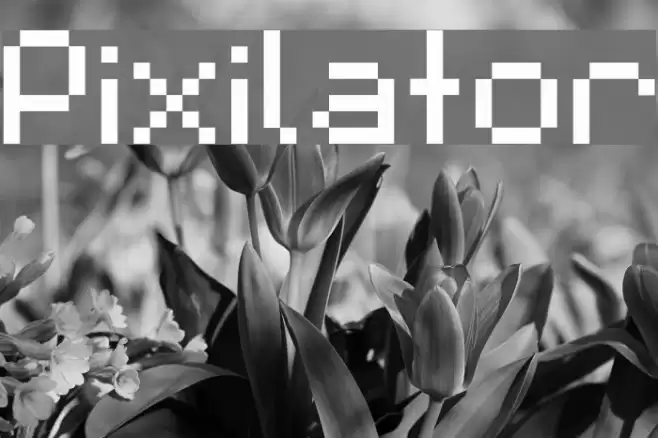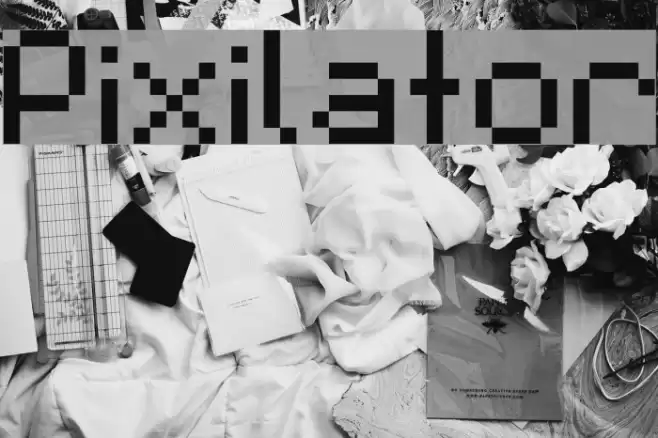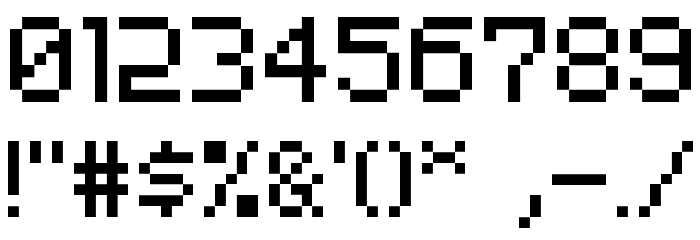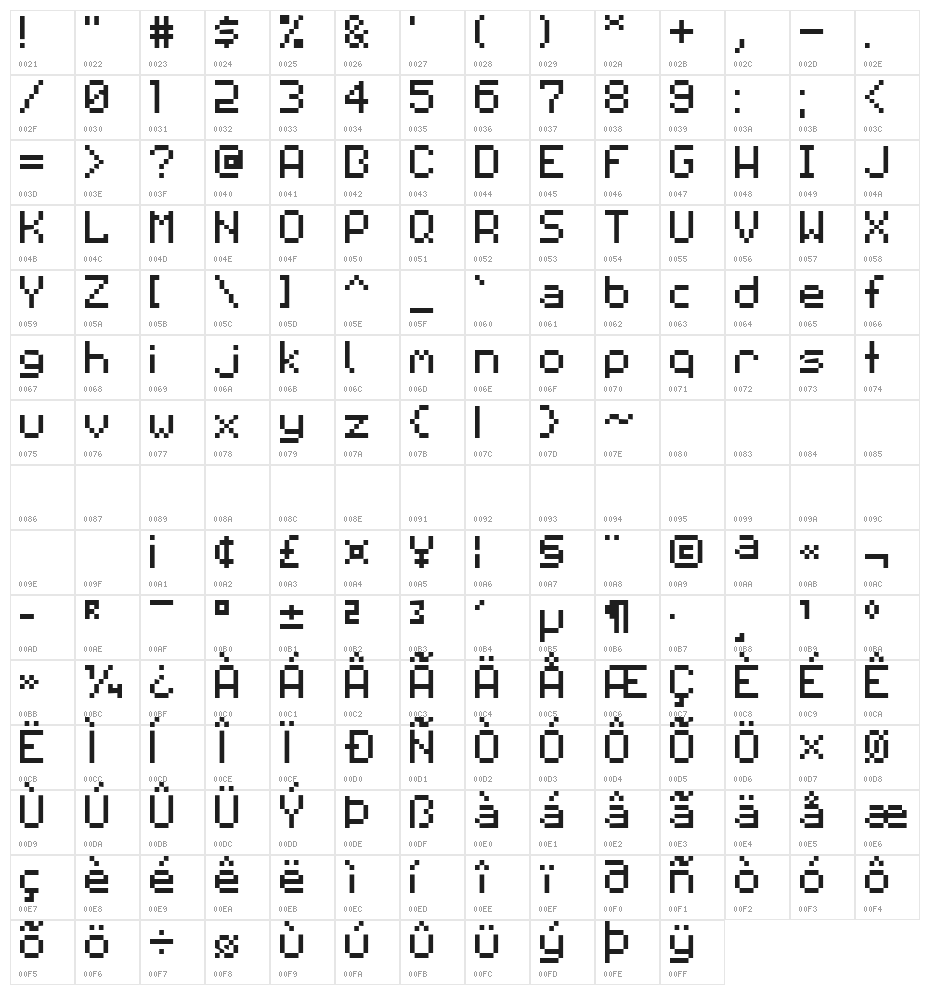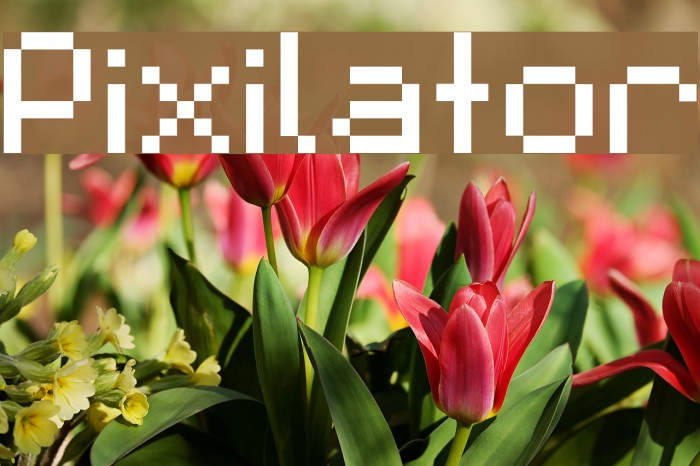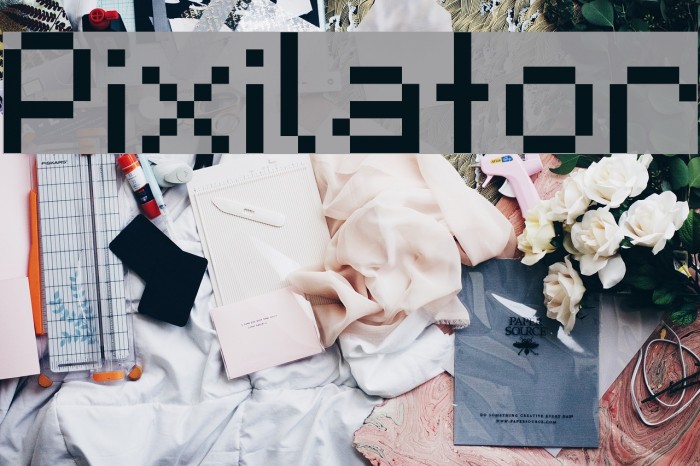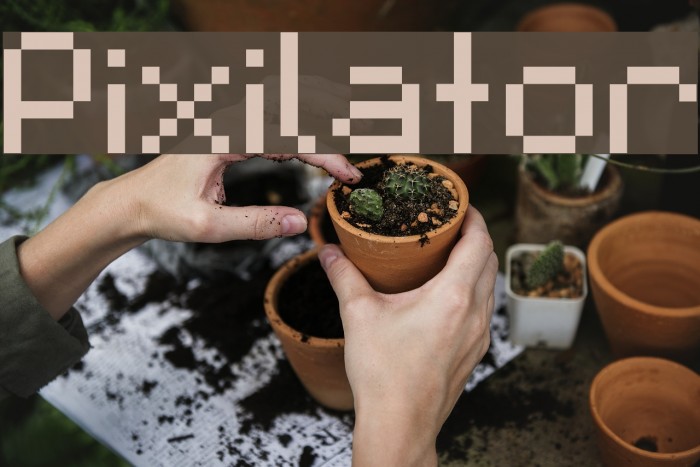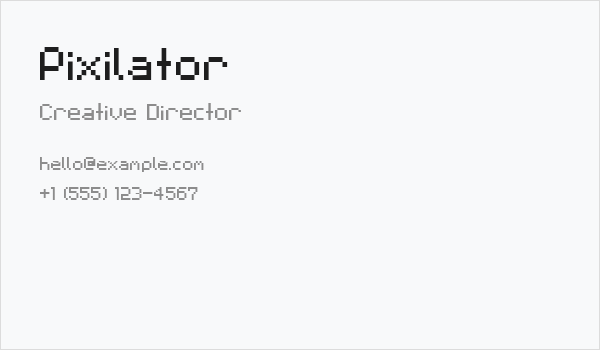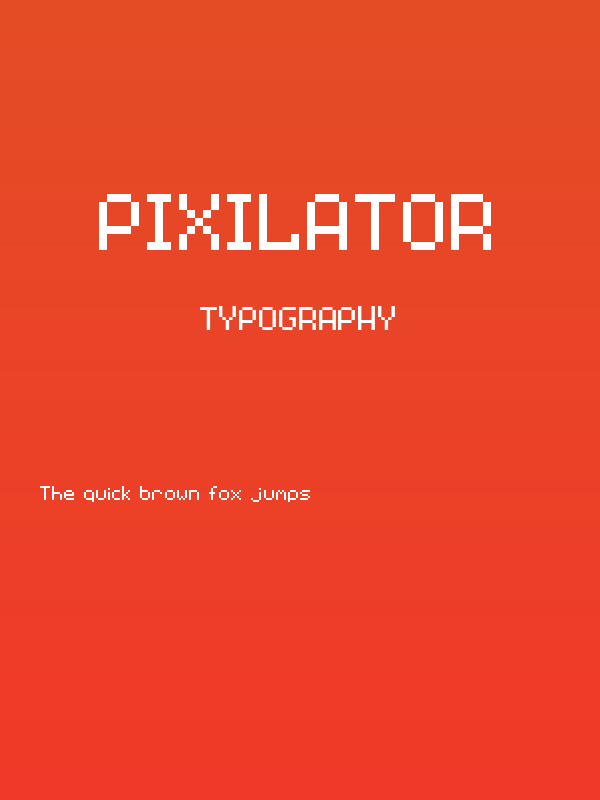
Pixilator Font
Pixilator Description
This font embodies a pixelated, retro aesthetic reminiscent of early digital displays and classic video games. Each character is constructed with a grid-like precision, giving it a blocky and geometric appearance. The uniformity in stroke width across all characters contributes to a cohesive and structured look. Its design is straightforward, with no curves or embellishments, emphasizing clarity and simplicity. The uppercase and lowercase letters maintain a consistent height, enhancing readability. Numbers and special characters follow the same pixelated style, ensuring a harmonious visual experience.
A pixelated, retro-style font with a blocky, geometric design from Uncategorized fonts.
- Proposed Projects: Ideal for retro-themed designs, video game graphics, digital art projects, and any creative work that requires a nostalgic or tech-inspired look.
- Overall Style: Retro, Digital
- Use Case: Headlines, Logos, Digital displays